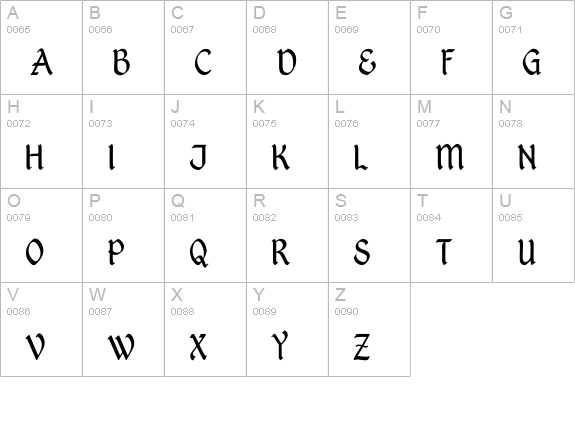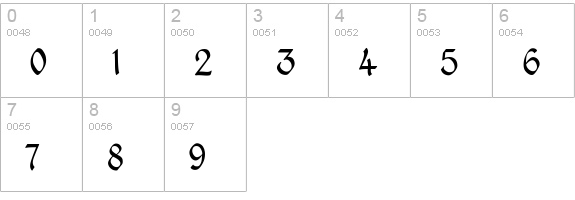
Kingthings Petrock Light is a refined, elegant variant in the Kingthings typeface family \xE2\x80\x94 well suited to elegant body text, refined sub-headings, and luxury branding.
Kingthings Petrock Light is a captivating and elegant font that effortlessly combines modernity with a touch of old-world charm. Its refined and delicately curved letterforms exude a sense of grace and sophistication, making it an excellent choice for a wide range of creative projects. This font's slender and graceful strokes lend it a timeless quality, evoking a sense of classic beauty. Its smooth and flowing lines create a harmonious balance that makes it a versatile choice for both headings and body text. Whether used for invitations, logos, branding, or any other design endeavor, Kingthings Petrock Light adds a touch of elegance and refinement to any project. One of the most remarkable aspects of Kingthings Petrock Light is that it is available for free download at FontsMarket.com. This means that you can effortlessly access this stunning font without any cost, allowing you to enhance your creative endeavors without breaking the bank. Its availability on FontsMarket.com ensures that you can easily incorporate this font into your designs, whether you are a professional designer or a hobbyist. In addition to its aesthetic appeal, Kingthings Petrock Light also boasts excellent legibility, ensuring that your message will be conveyed clearly and effectively. Its carefully crafted letterforms ensure that each character is easily distinguishable, making it a practical choice for a wide array of design projects. With its timeless beauty, versatility, and free availability for download at FontsMarket.com, Kingthings Petrock Light is a font that delivers both style and substance. Whether you are looking to add a touch of sophistication to your branding, invitations, or any other creative project, this font is a reliable and aesthetically pleasing choice. Download Kingthings Petrock Light today and unlock a world of design possibilities.